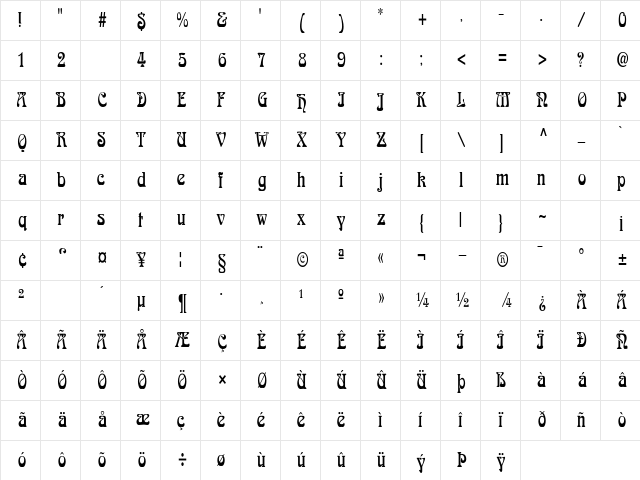
LaliqueLight Regular Free Font
LaliqueLight Regular
Design Context for LaliqueLight
LaliqueLight is a composed and adaptable typeface that performs quietly and consistently across a wide range of design contexts. Its slender proportions lend an understated elegance to any composition.
Pro Tip: Use LaliqueLight in both headline and body roles to test its range before committing to a single application.